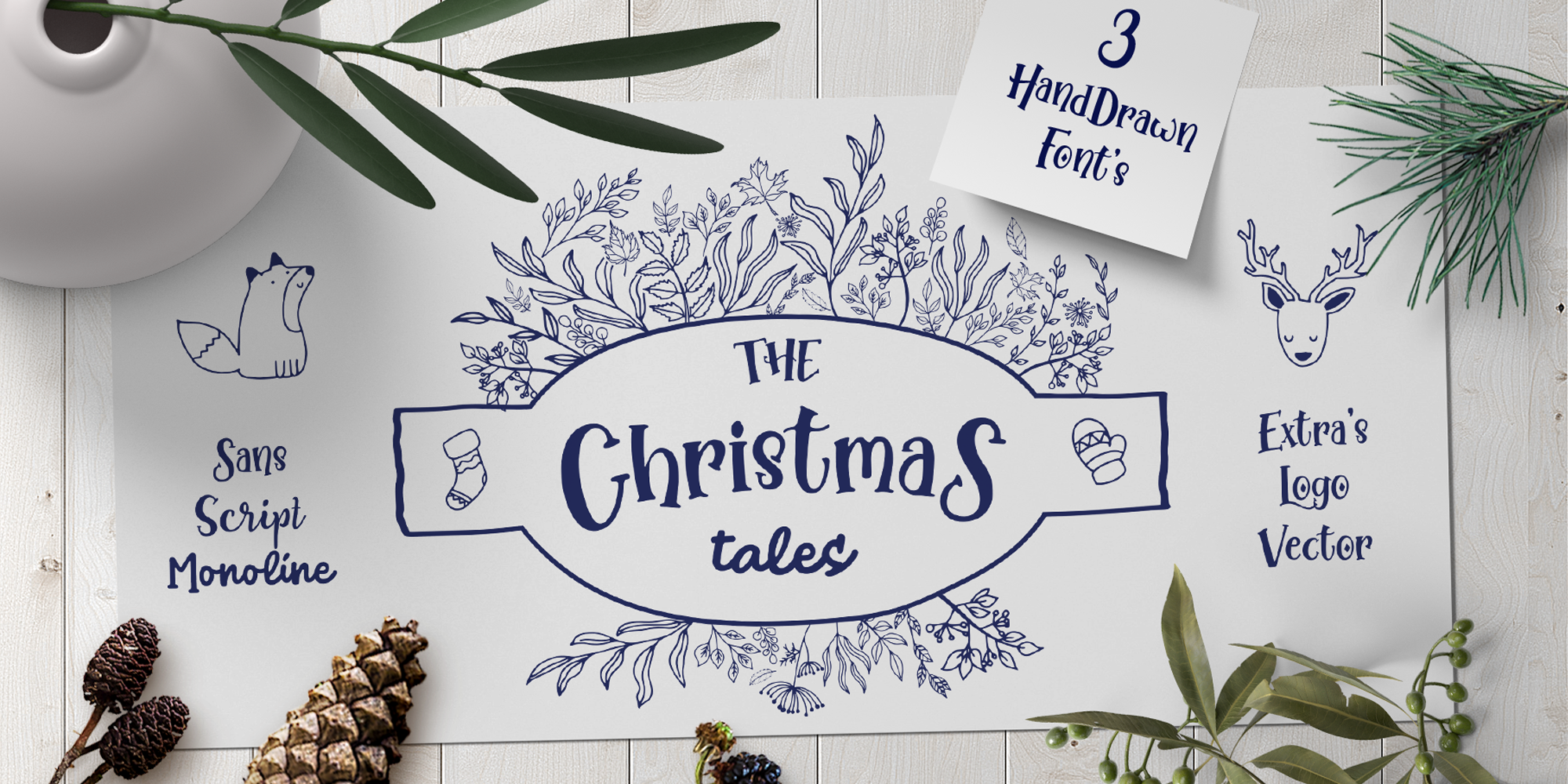
Winter Tales
Winter Tales is a script font family. This typeface has three styles and was published by Hart Foundry.
Winter Tales is a handwritten font trio, this font very easy to use and really playful. by combining three fonts, you can explore to create a combination that would have been nice.
Winter Tales Script • This font have two different style, uppercase acts as lowercase. so in this font have two lowercase and its terms can be combined as alternative.
Winter Tales Doodles • These are the doodles we use in the display. So you can use it like an existing display. But The file is in the illustrator file.
Winter Tales Sherif • This fonts have uppercase and lowercase, and if you create a word, you can make like a bouncing effect. like the word “summer” in the main display.
Winter Tales Mono Line • This font is more cute, so you can play around with all of these fonts and create something funny and awesome.